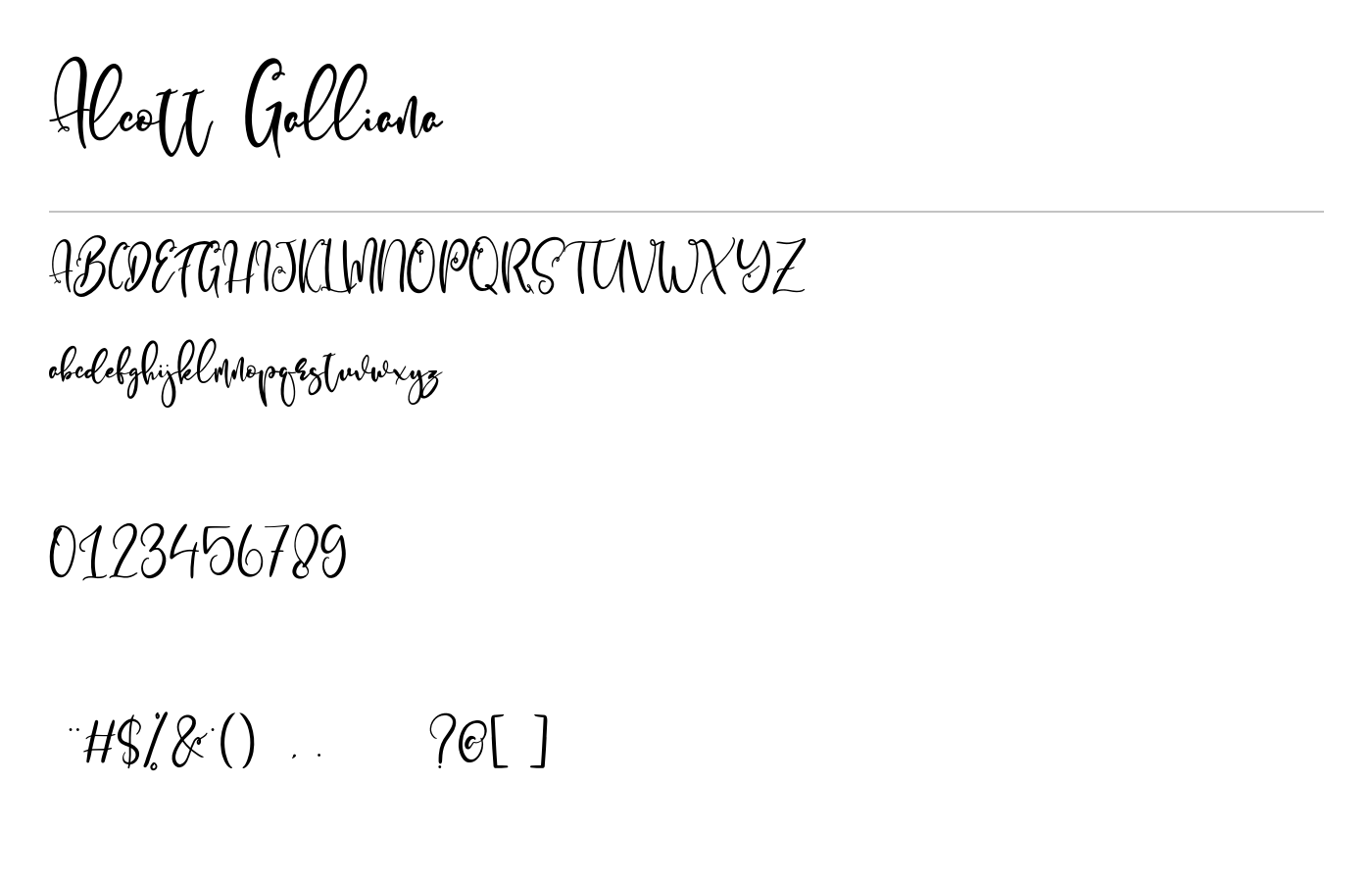
Alcott Galliana is a delicate and elegant handwritten script font with a slender and flowing style. Its tall, narrow letterforms with subtle flourishes give it a sophisticated yet approachable feel, making it ideal for invitations, branding, and creative projects that seek a personal and stylish touch. This font works beautifully in designs that aim to convey grace and charm without sacrificing readability.
Alcott Galliana Font
About Alcott Galliana Font